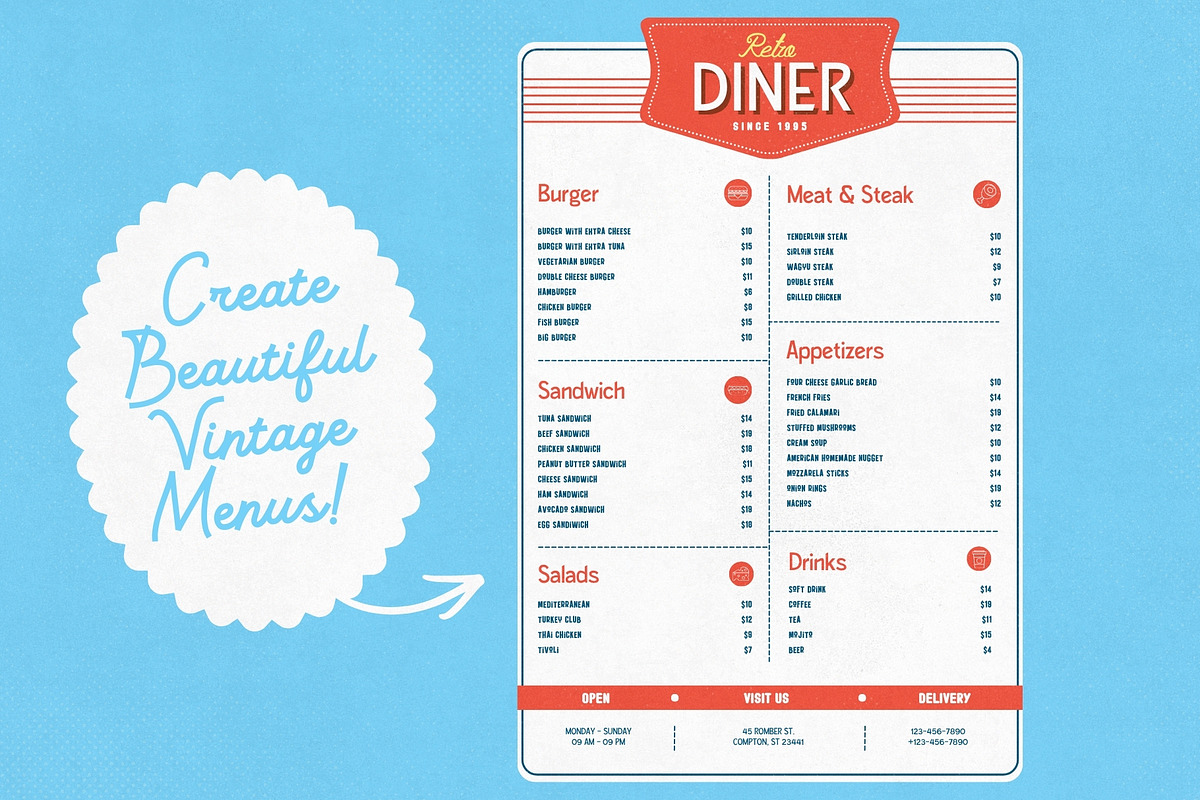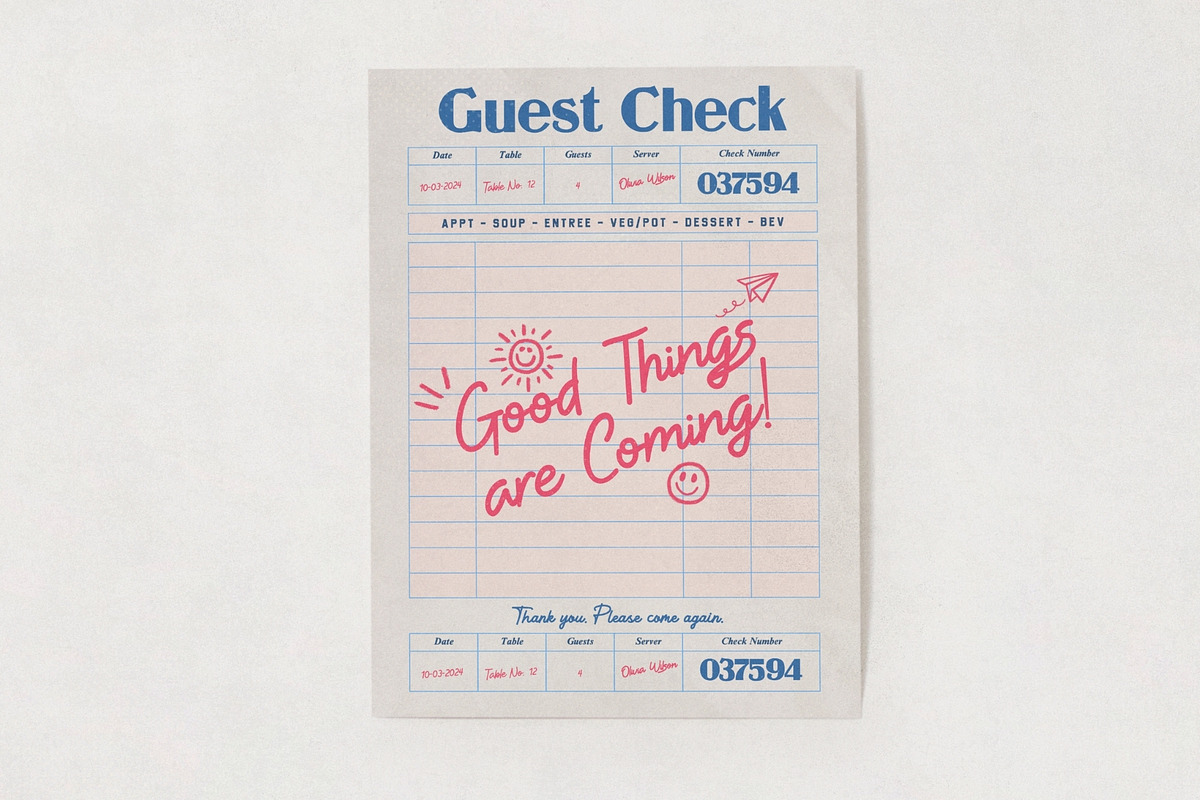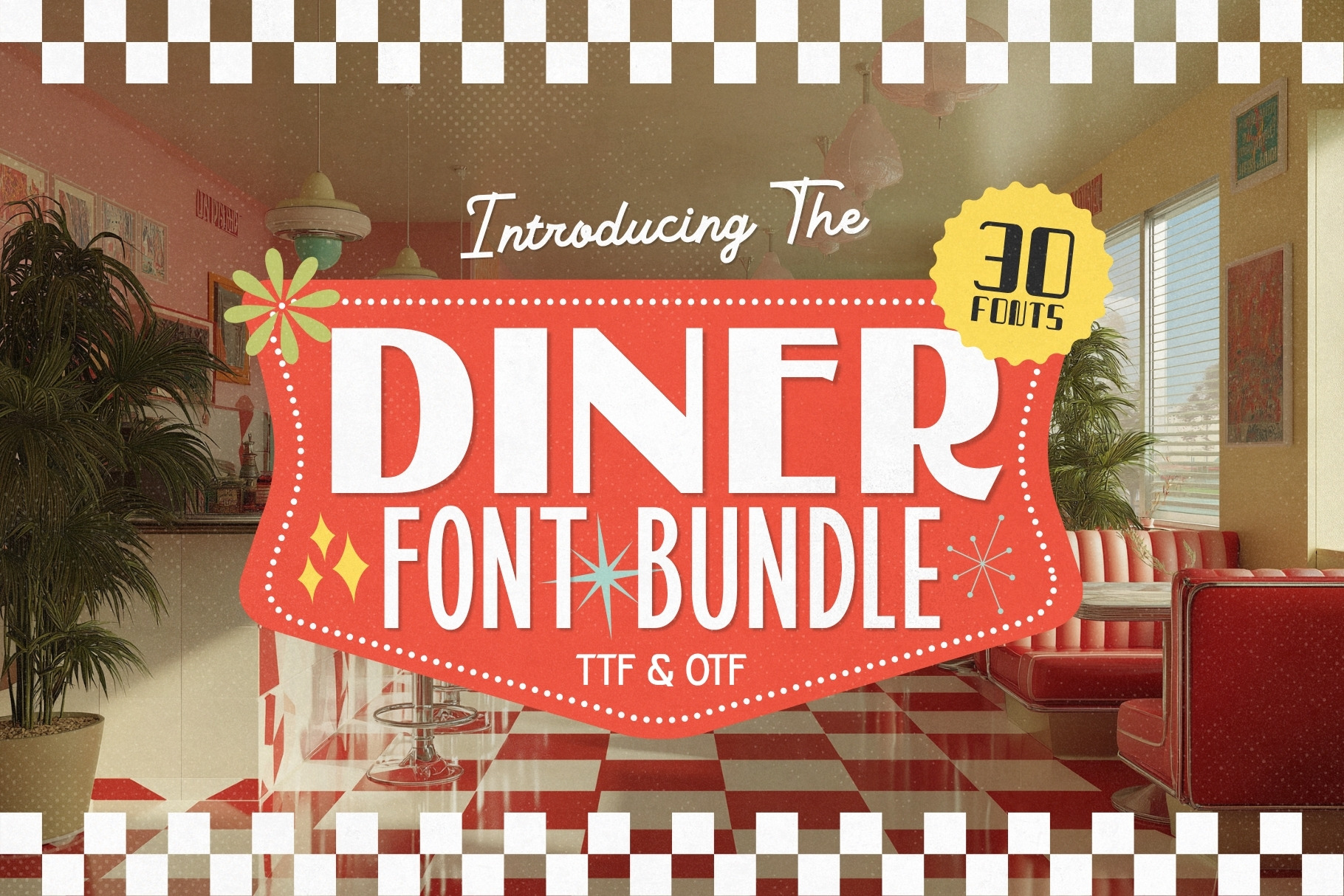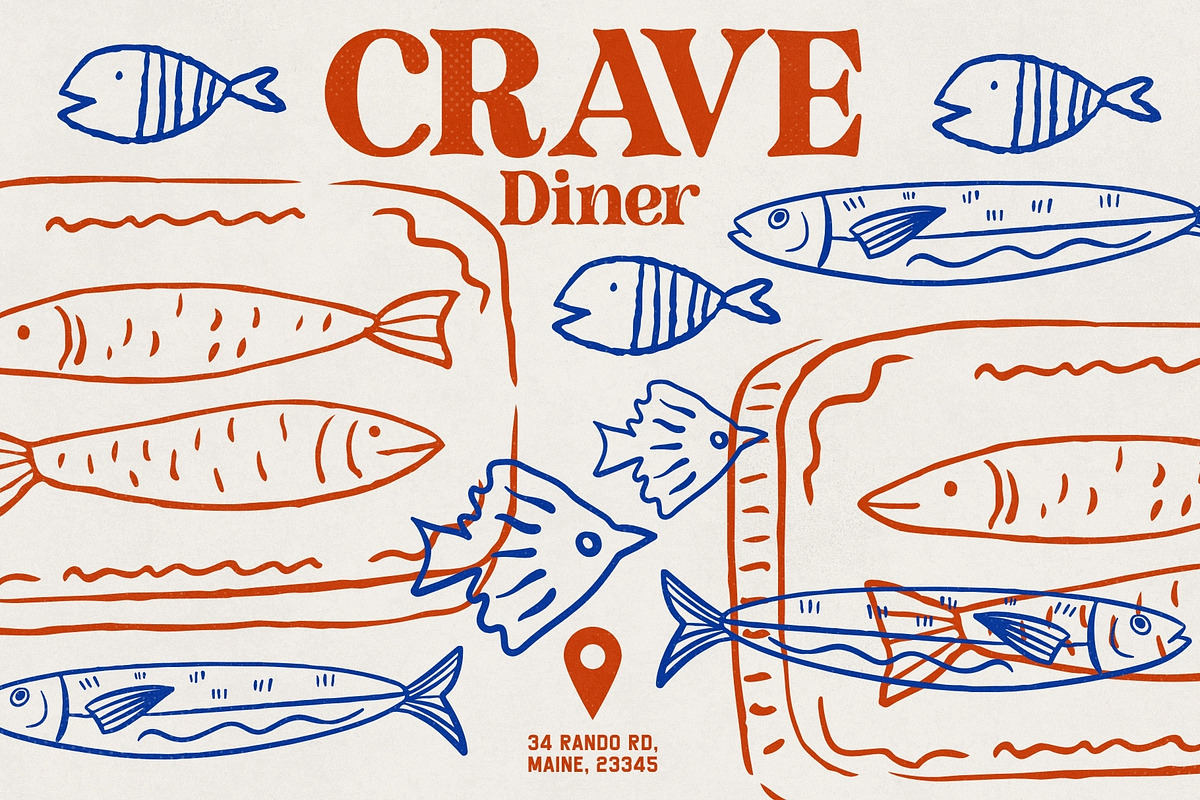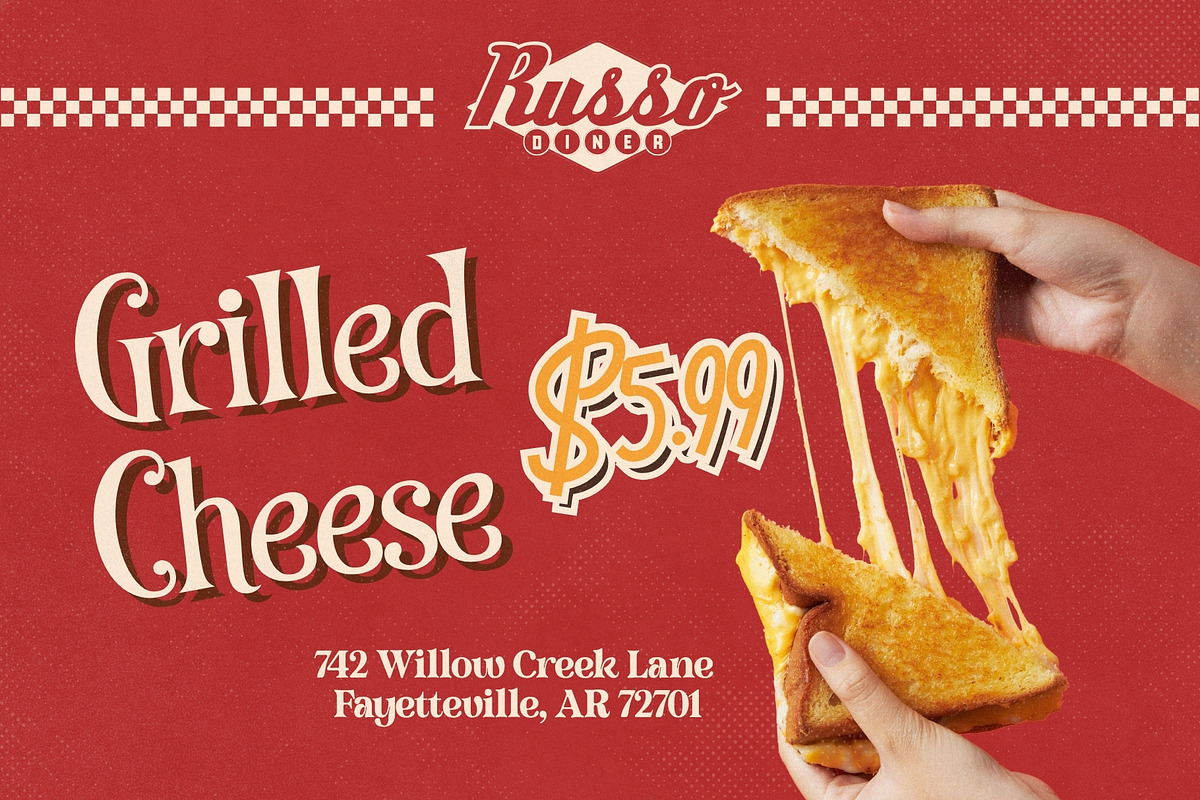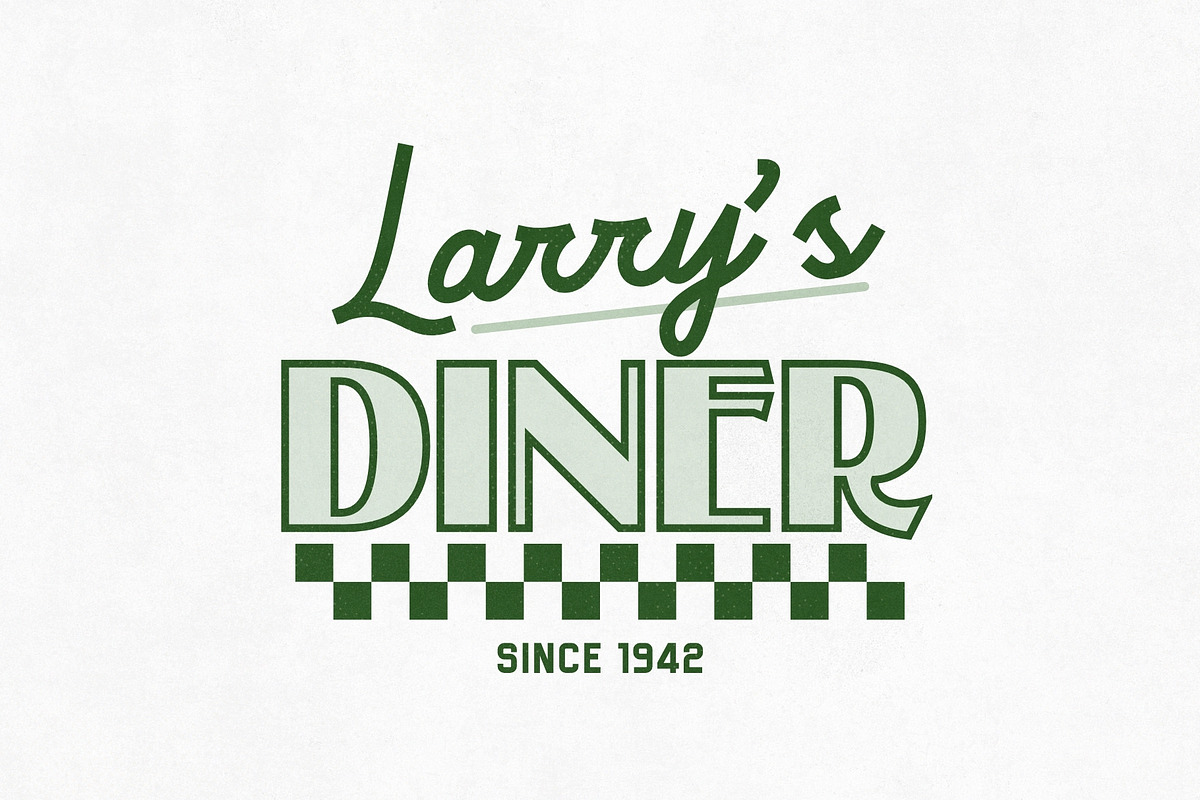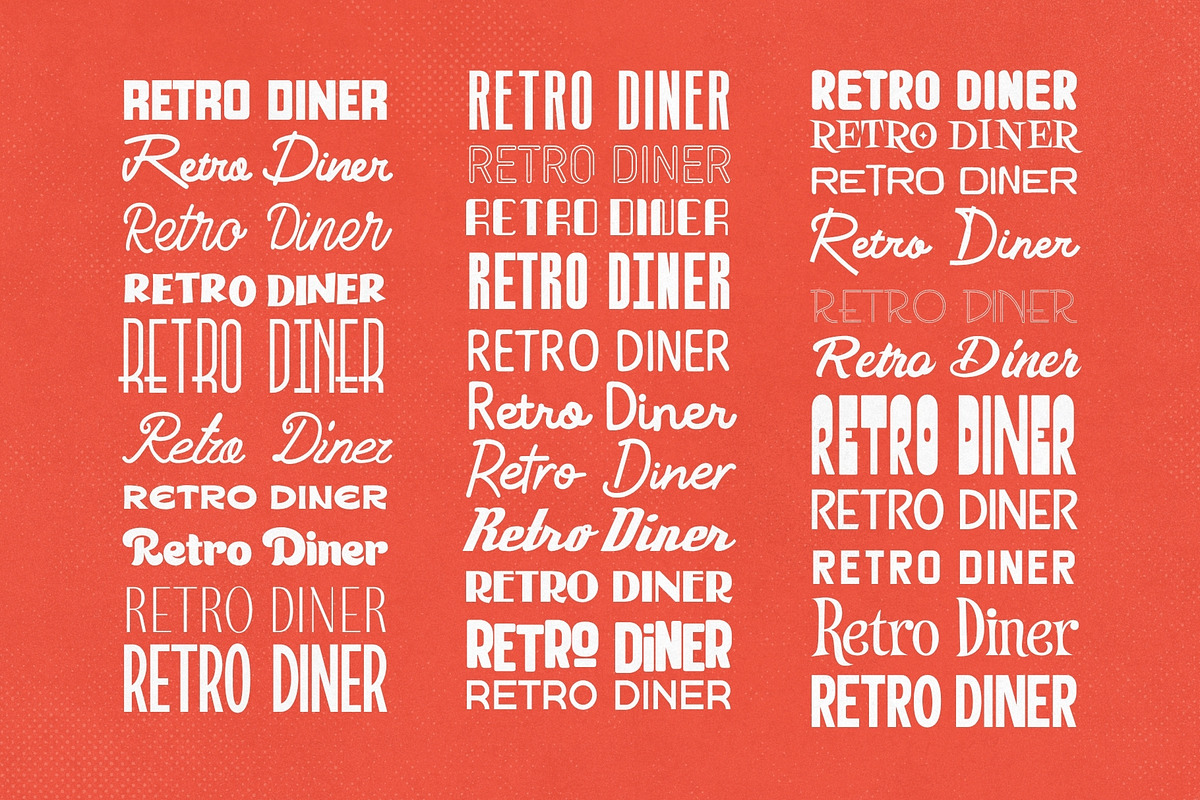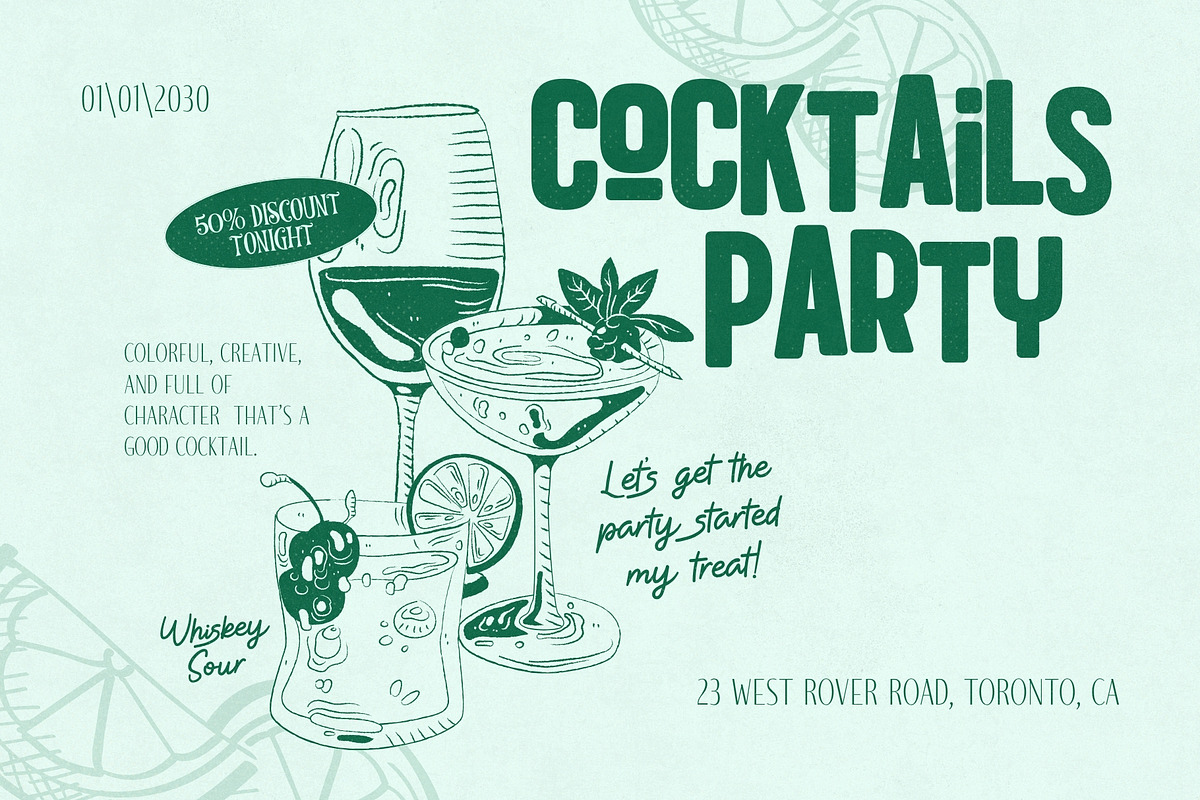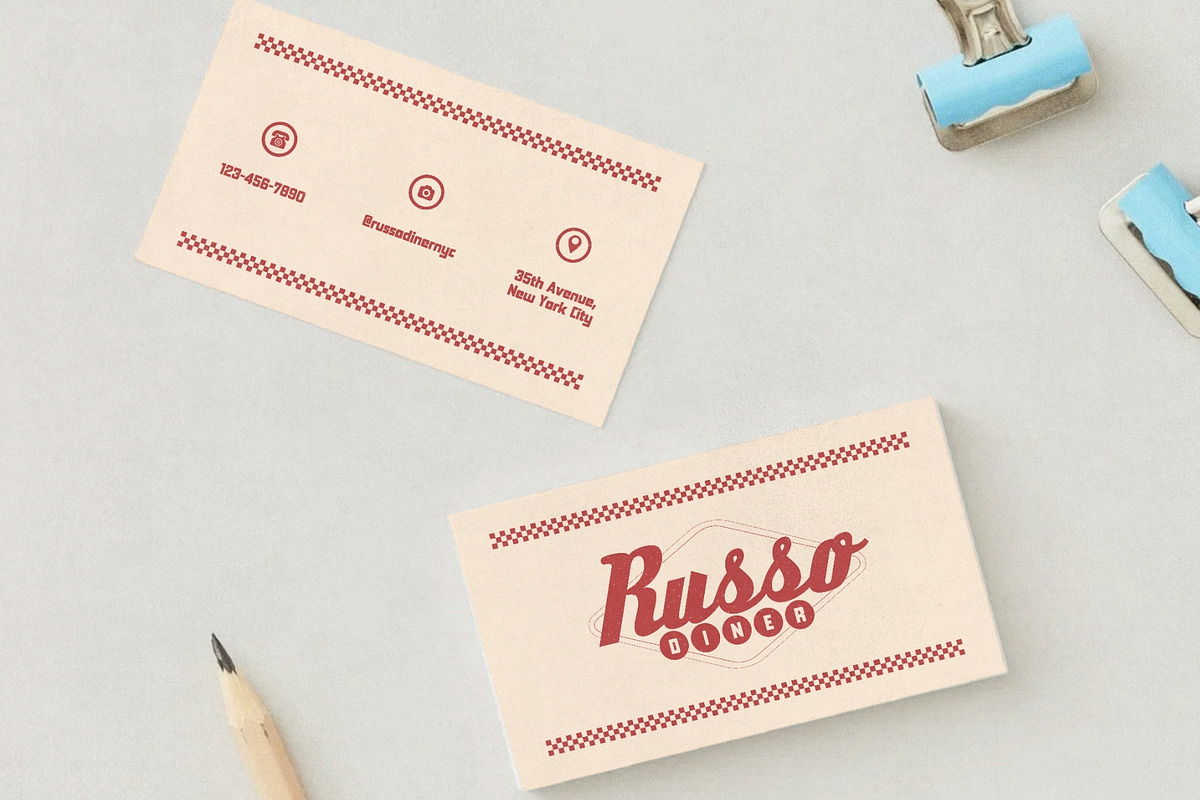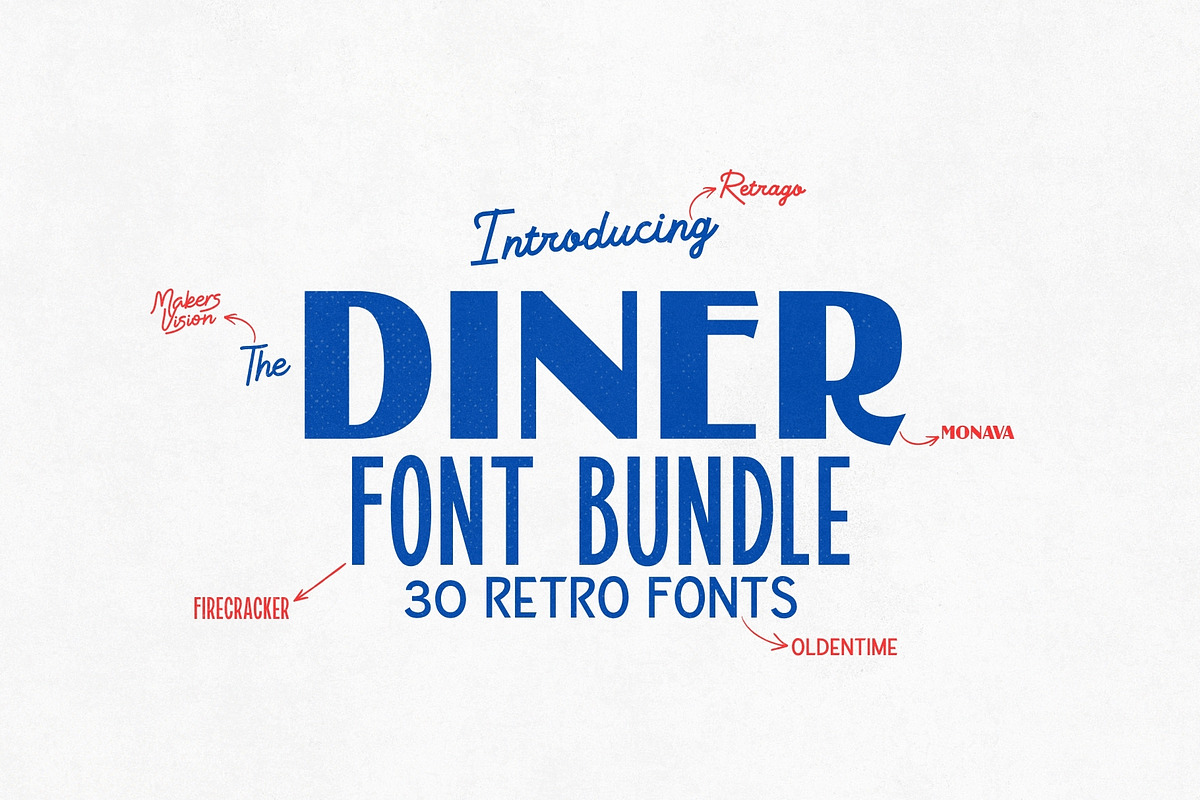
Diner Font Bundle - 30 Retro Fonts!
Close your eyes and picture it.
Chrome bar stools. Checkered floors. A jukebox in the corner playing something that makes your foot tap automatically. Neon signs glowing pink and turquoise against the twilight. A menu so perfectly designed it feels like a piece of art.
That feeling — that warm, nostalgic, impossibly cool aesthetic — lives inside typography.
And now you have 30 fonts that bottle it perfectly.
Introducing The Diner Font Bundle
30 hand-picked retro font families capturing the full spirit of 1950s and 1960s American design. From the bold confidence of roadside diner signage to the playful curves of a soda shop menu — every font in this collection tells a story the moment someone reads it.
What's Inside
30 premium retro font families spanning every corner of the golden era:
Bold diner display fonts
Playful soda shop scripts
Classic americana serif fonts
Neon sign inspired display fonts
Mid-century modern clean fonts
Retro poster condensed fonts
Vintage menu hand-lettered styles
Drive-in marquee display fonts
Jukebox era decorative fonts
🍔 Restaurant & cafe branding — menus, signage, packaging, and logos that transport customers the moment they see them
🎨 Logo design — build retro brand identities that stand out in a sea of modern minimalism
📋 Menu design — make every dish feel like a classic American experience before the food even arrives
🏪 Retail & product packaging — vintage typography on packaging stops shoppers cold every single time
🎬 Film & video titles — perfect for period pieces, food documentaries, and anything set in mid-century America
Why Retro Typography is Having a Massive Moment
Everywhere you look right now — fashion, food, music, design — the 1950s and 1960s aesthetic is back and bigger than ever. Brands are paying top designers thousands of dollars to capture this exact feeling.
You have 30 fonts that do it instantly.